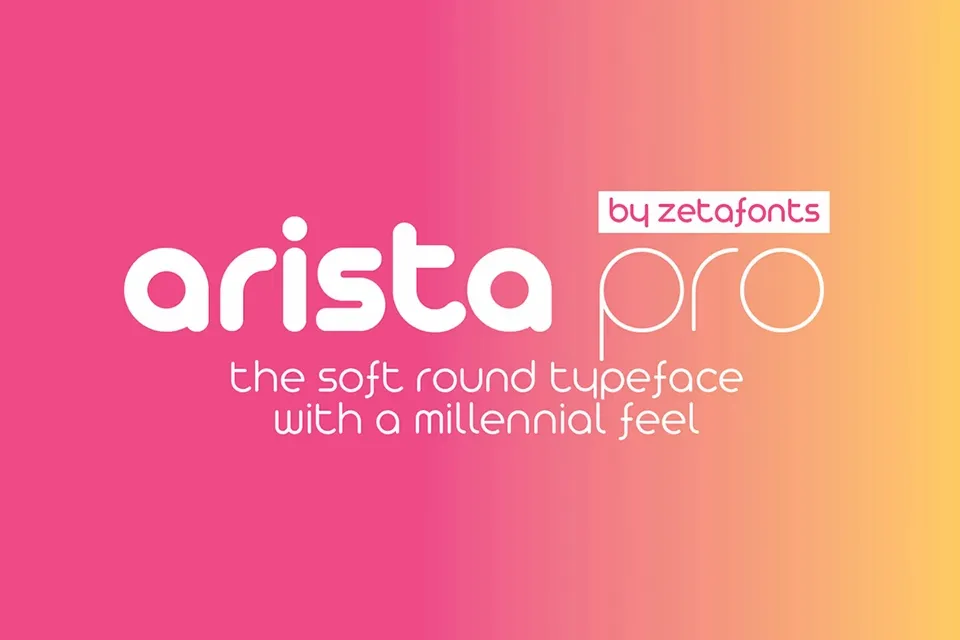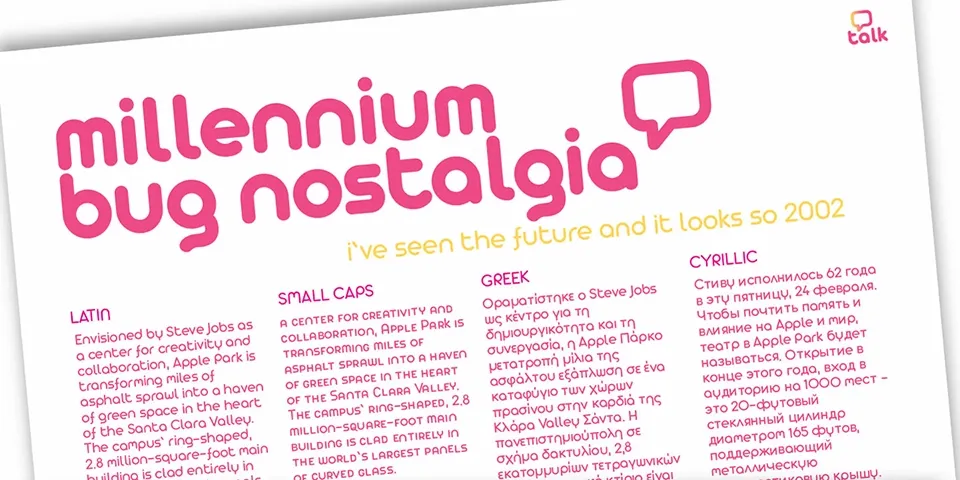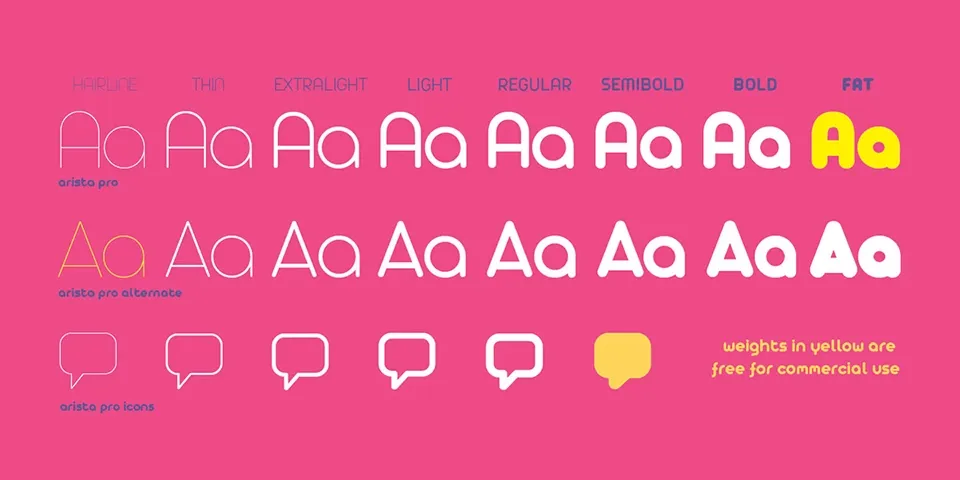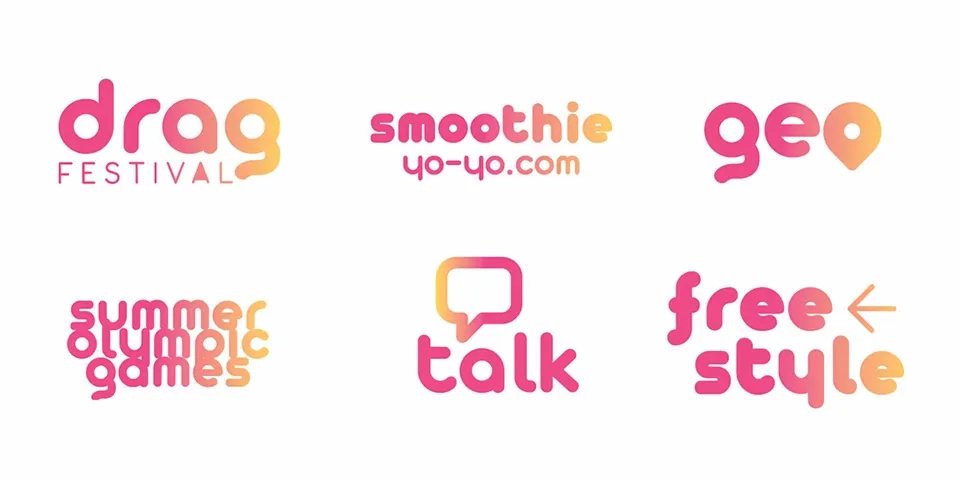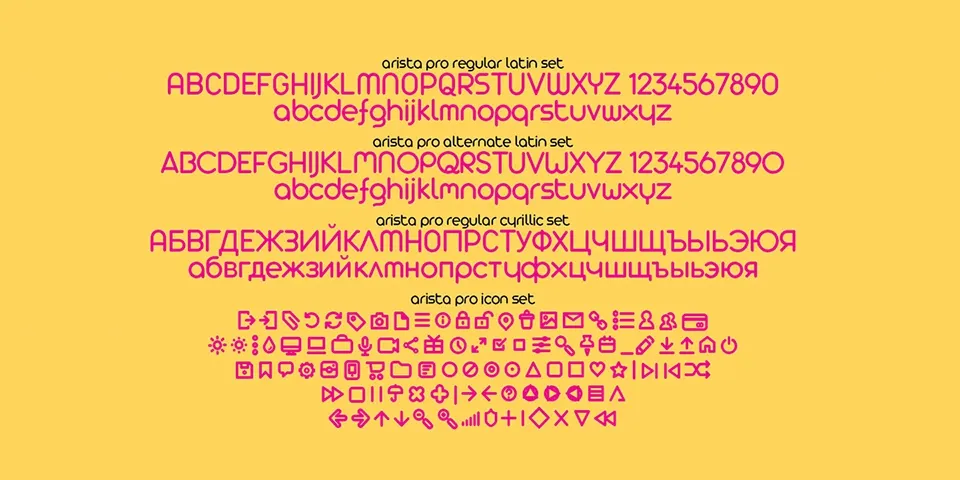
Arista Pro Font Family
Arista Pro Font Family is a versatile geometric sans serif typeface designed by Francesco Canovaro and published by Zetafonts. Originally released in 2007 as Arista Z and later reissued as Arista 2.0 in 2010, the Pro version represents the definitive evolution of this font family. The typeface features a soft, geometric approach and comes in multiple weights with two alternate versions. It includes support for Greek and Cyrillic alphabets, along with an extended range of Latin characters. A notable companion, Arista Pro Icon, offers variable-width monoline icons that perfectly match the typeface’s line width. The font’s clean, modern aesthetic makes it suitable for both display and paragraph text applications.